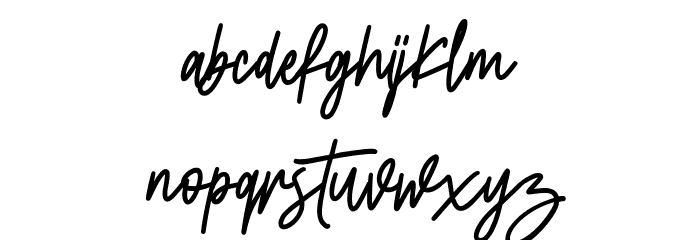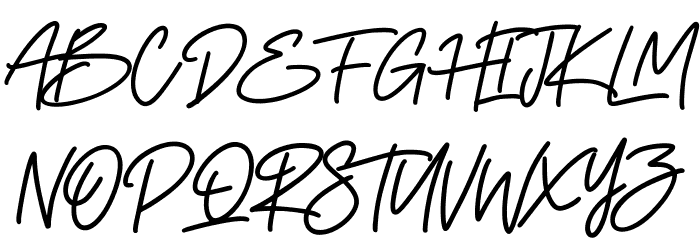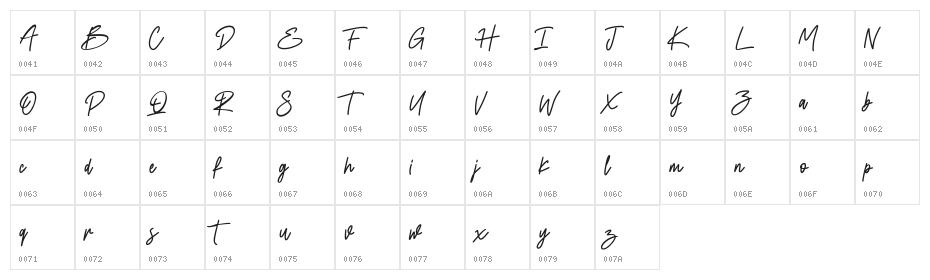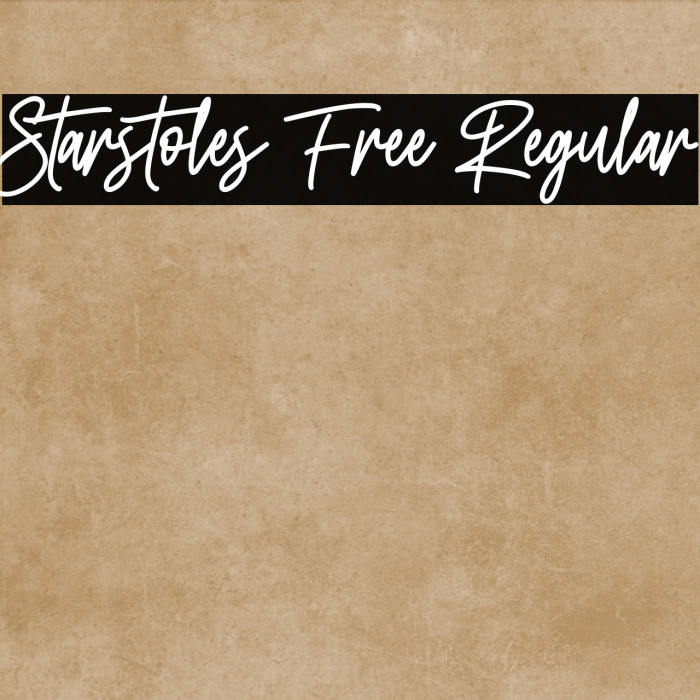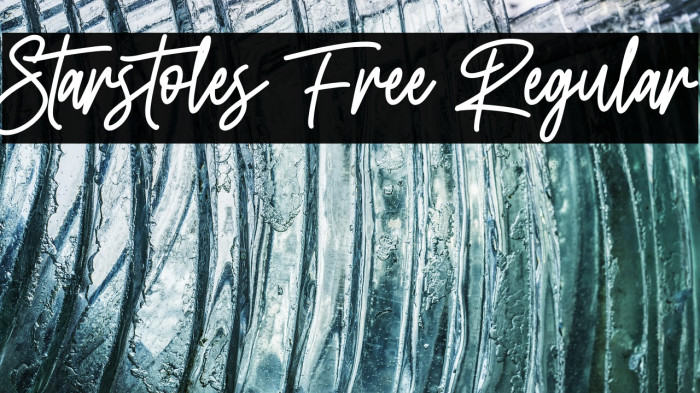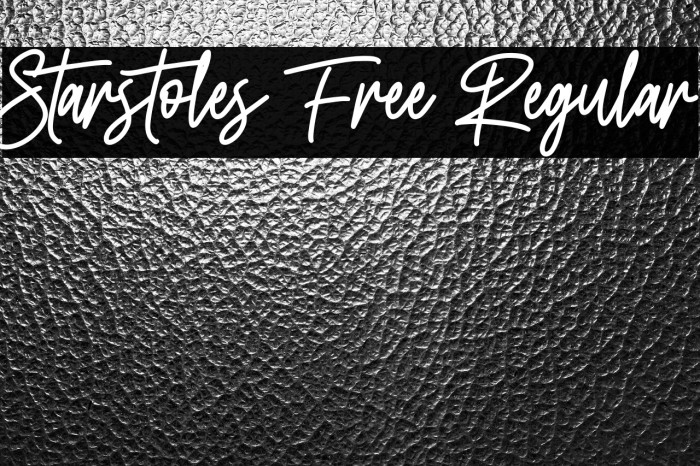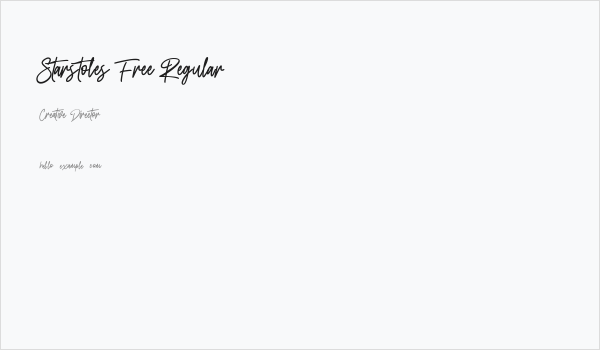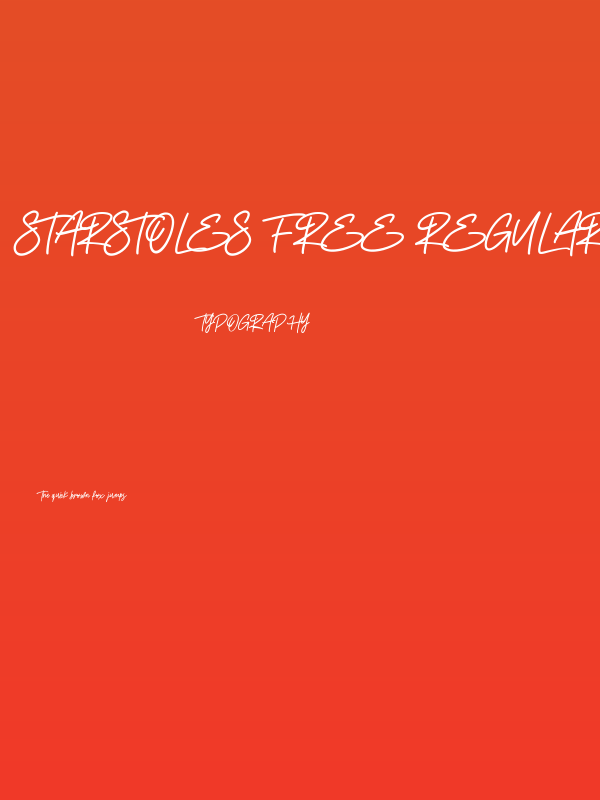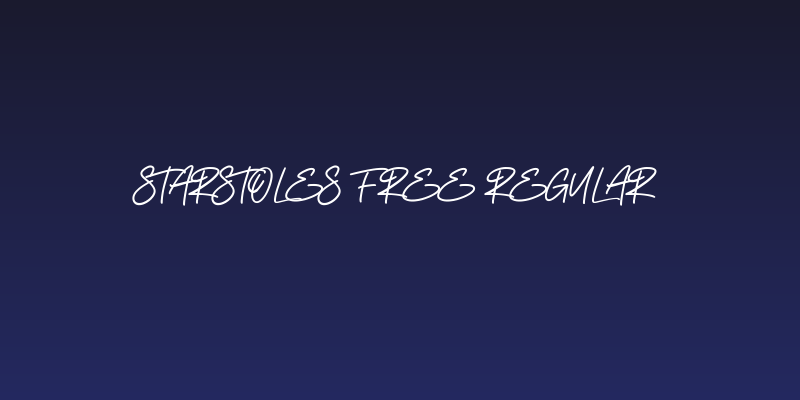
Starstoles Free Regular Font
This font features a dynamic, handwritten style with a modern flair. The letters are fluid and connected, giving it a natural and personal touch. The uppercase and lowercase letters are distinct yet harmonious, maintaining a consistent flow throughout. The strokes are smooth with a slight variation in thickness, adding to its casual elegance. This font is ideal for projects that require a personal, artistic touch, such as invitations, greeting cards, or branding materials. The characters are well-spaced, ensuring readability while retaining the handwritten aesthetic.
A modern, handwritten font with fluid, connected letters and a casual elegance.
- Font: Starstoles Free Regular
- Proposed Projects: Ideal for invitations, greeting cards, branding materials, and artistic projects.
- Category: Handwritten
- Use Case: Logos, Headlines, Artistic projects